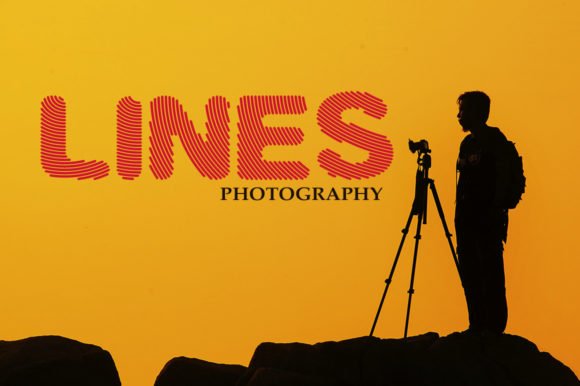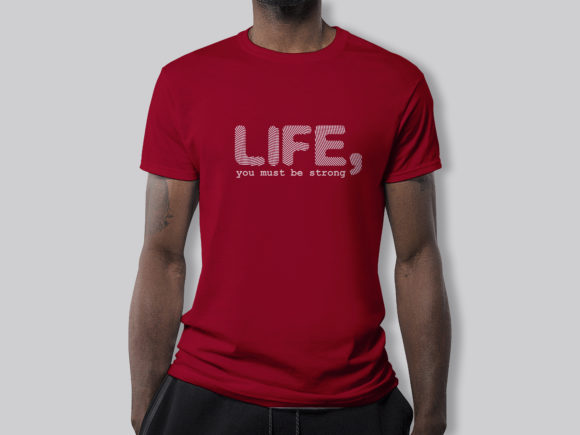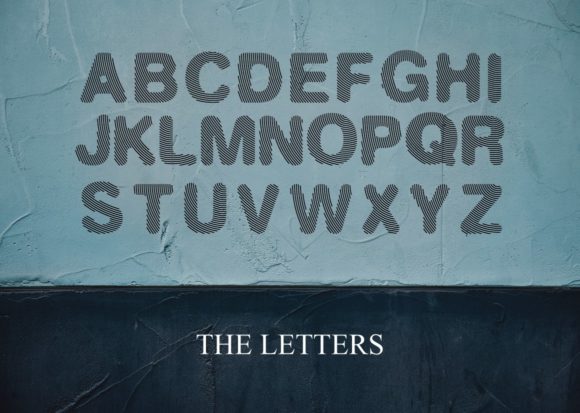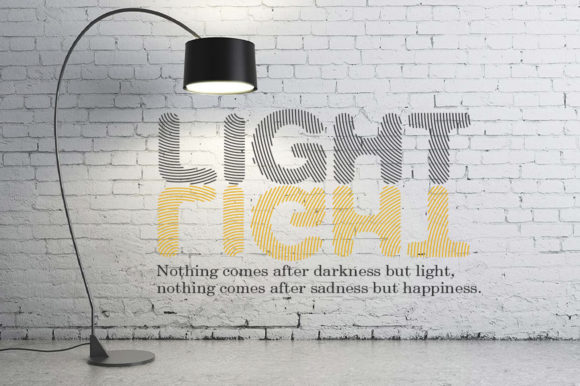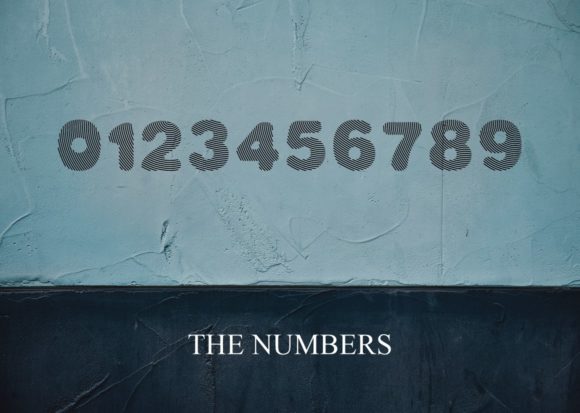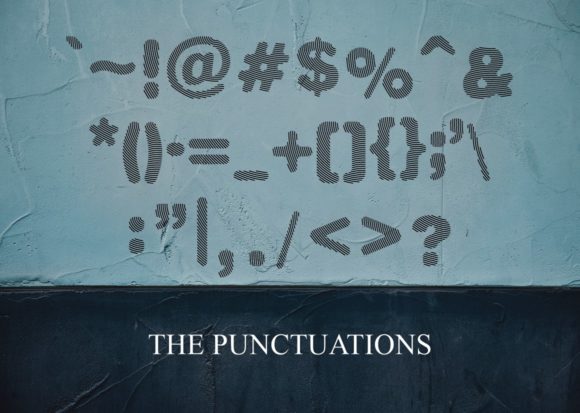
Finger Line Font: Elevate Your Designs with a Cool and Trendy Display Font
In the world of typography, fonts play a crucial role in making or breaking a design. A perfect font can elevate your creation from ordinary to extraordinary. If you’re a designer or crafter looking for a font that can add a touch of coolness and trendiness to your work, look no further than Finger Line Font. In this article, we’ll explore what makes Finger Line Font special and why it’s an incredible asset to your font library.
What is Finger Line Font?
Finger Line Font is a modern and stylish display font that is perfect for a wide range of design projects. Its unique and elegant design makes it stand out from other fonts, and its versatility ensures that it can be used in various contexts. Whether you’re working on a logo, branding, advertising, or any other design project, Finger Line Font is an excellent choice.
Key Features of Finger Line Font
- Cool and Trendy Design: Finger Line Font boasts a cool and trendy design that will give your creations a modern and fresh look.
- Display Font: This font is specifically designed as a display font, making it perfect for headlines, titles, and other attention-grabbing elements.
- Versatile: Finger Line Font can be used for a wide range of design projects, from logos and branding to advertising and more.
- Elegant and Unique: The font’s elegant and unique design ensures that your creations will stand out from the crowd.
Why Choose Finger Line Font?
So, why should you choose Finger Line Font for your design projects? Here are a few compelling reasons:
- Elevate Your Designs: Finger Line Font has the potential to elevate any creation, making it an excellent addition to your font library.
- Save Time: With Finger Line Font, you can create stunning designs in no time. Its unique design and versatility ensure that you can use it for various projects, saving you time and effort.
- Stand Out from the Crowd: In a world where designs are constantly competing for attention, Finger Line Font can help you stand out from the crowd. Its elegant and unique design ensures that your creations will grab attention and leave a lasting impression.
Who Can Benefit from Finger Line Font?
Finger Line Font is an excellent choice for a wide range of designers and crafters, including:
- Graphic Designers: If you’re a graphic designer looking for a font that can add a touch of coolness and trendiness to your designs, Finger Line Font is an excellent choice.
- Logotype and Branding Designers: Finger Line Font is perfect for logotype and branding designers who want to create unique and memorable logos.
- Advertising and Marketing Professionals: If you’re an advertising or marketing professional looking for a font that can grab attention and leave a lasting impression, Finger Line Font is an excellent choice.
- Crafters and Makers: Finger Line Font is also perfect for crafters and makers who want to add a touch of elegance and uniqueness to their creations.
How to Use Finger Line Font?
Using Finger Line Font is easy and straightforward. Here are a few tips to get you started:
- Pair it with Other Fonts: Finger Line Font pairs well with other fonts, making it easy to create stunning designs.
- Use it for Headlines and Titles: Finger Line Font is specifically designed as a display font, making it perfect for headlines and titles.
| Font Name | Finger Line Font |
| Author | rulihoki studio |
In conclusion, Finger Line Font is a cool and trendy display font that can elevate any creation. Its unique and elegant design makes it an excellent addition to your font library, and its versatility ensures that it can be used for a wide range of design projects. Whether you’re a designer, crafter, or maker, Finger Line Font is an excellent choice for anyone looking to add a touch of coolness and trendiness to their work.